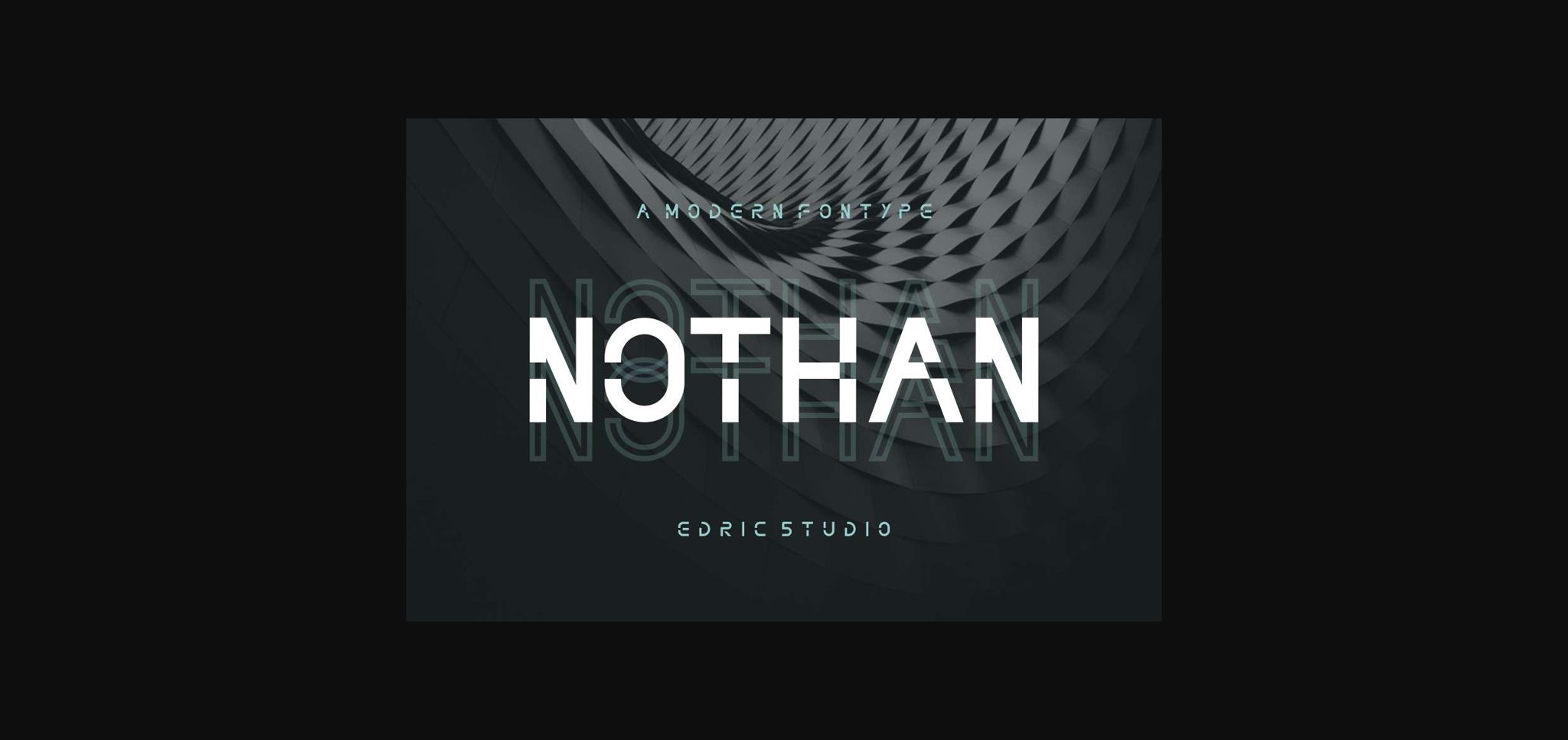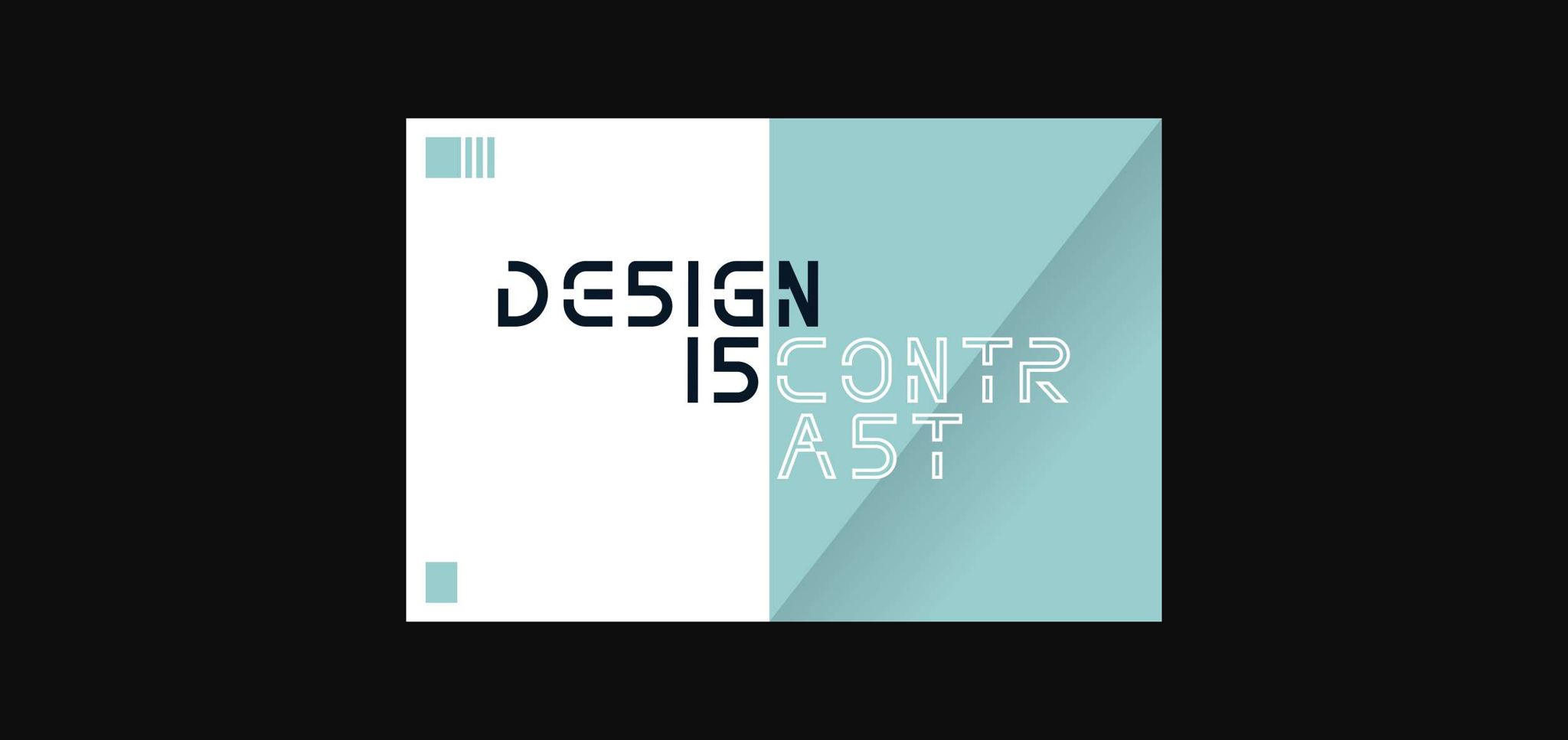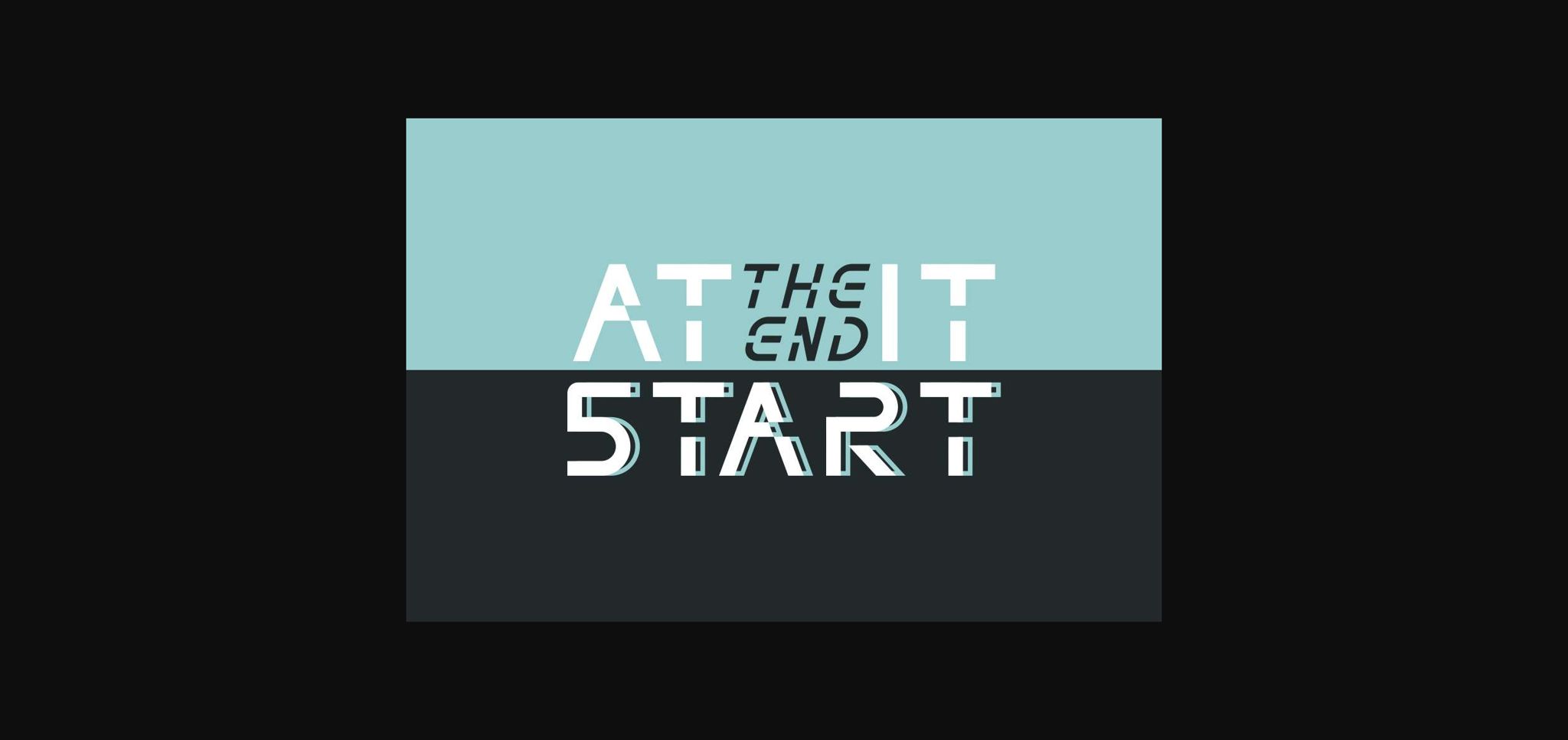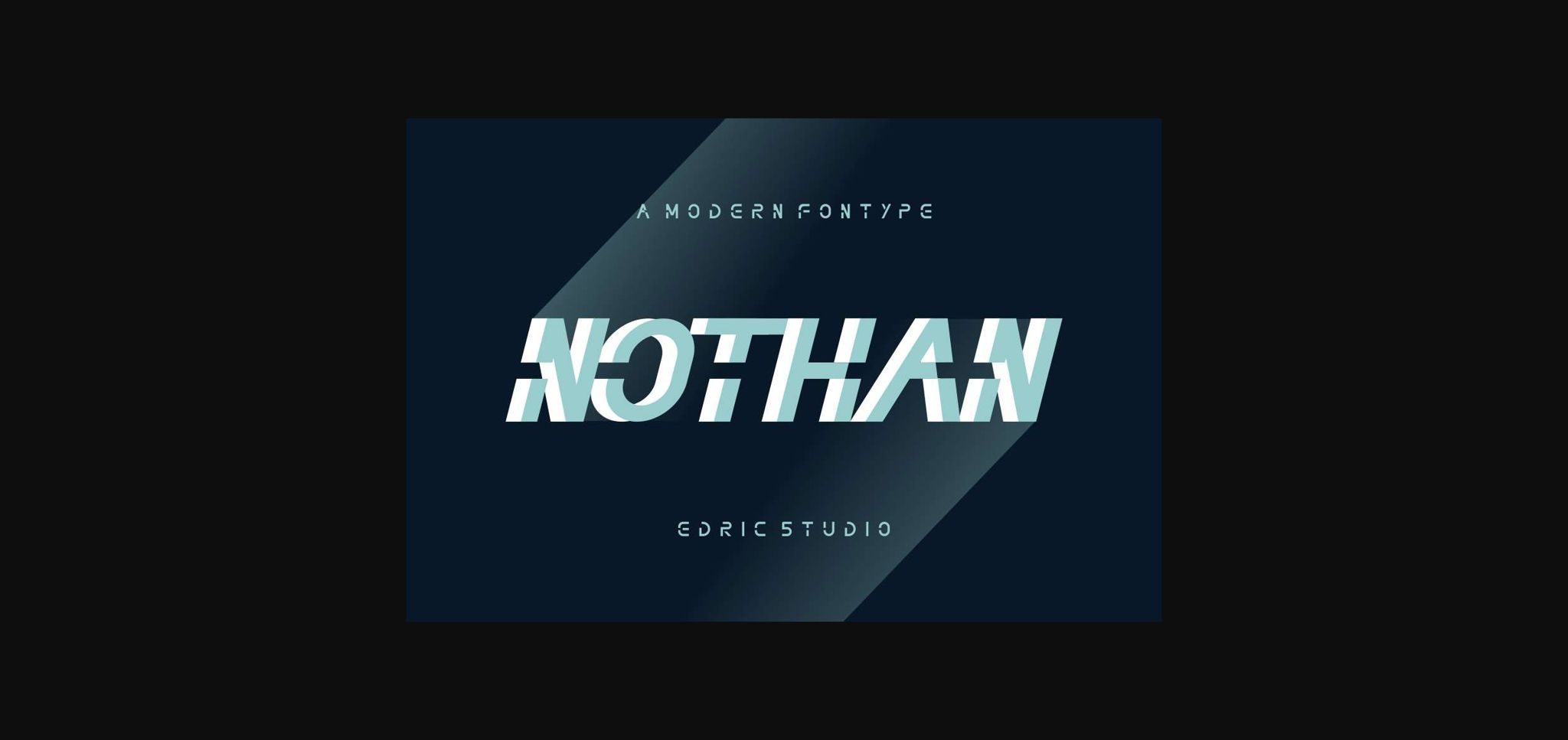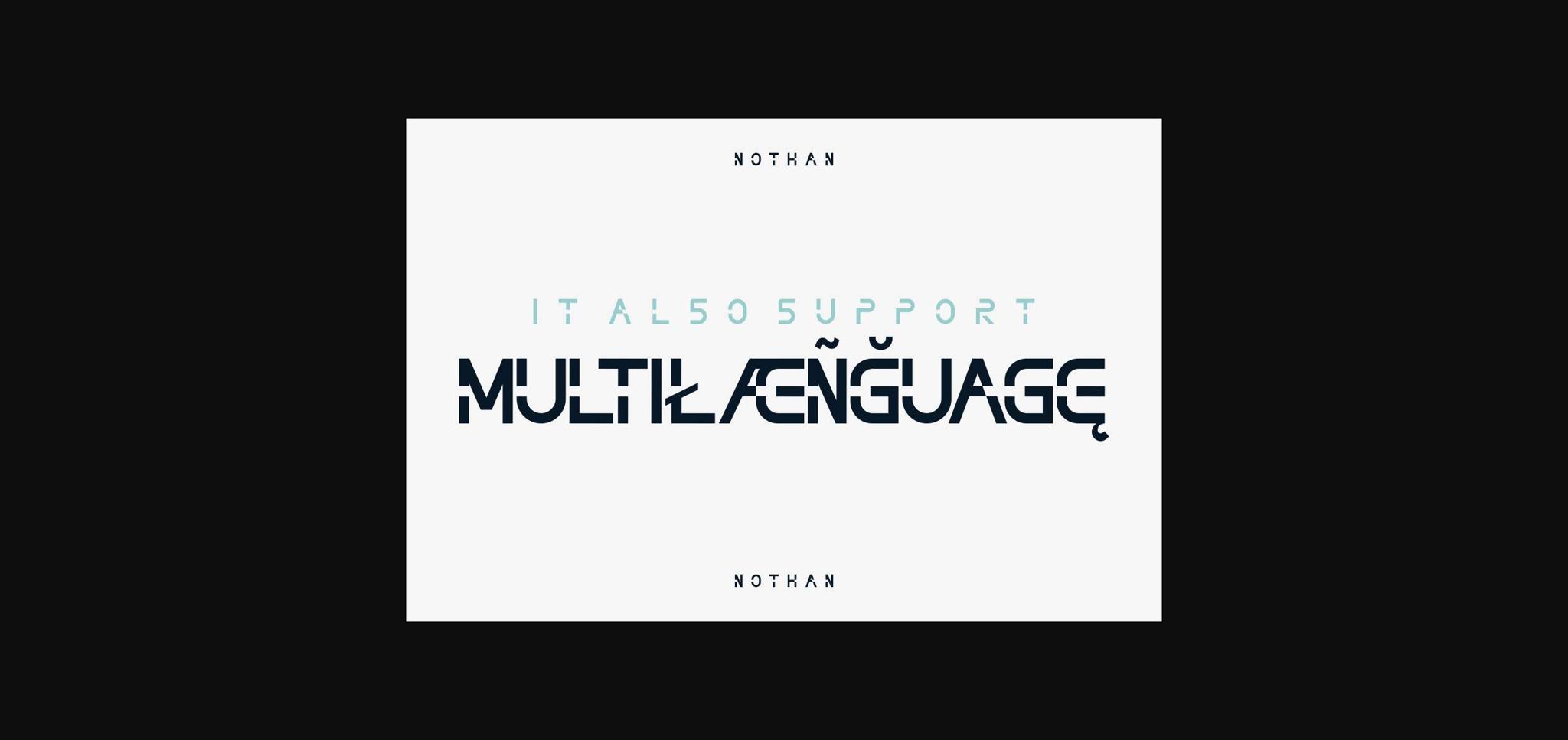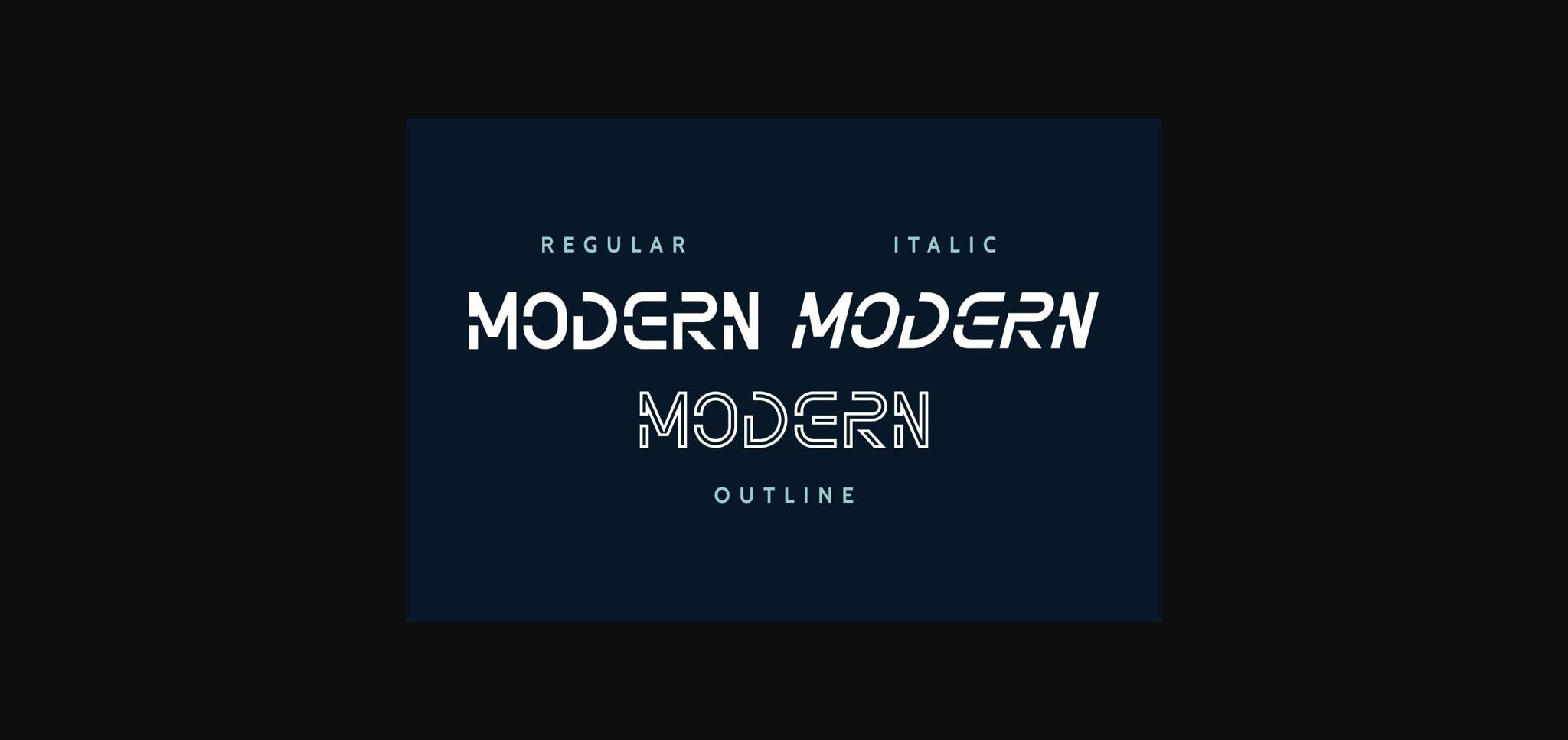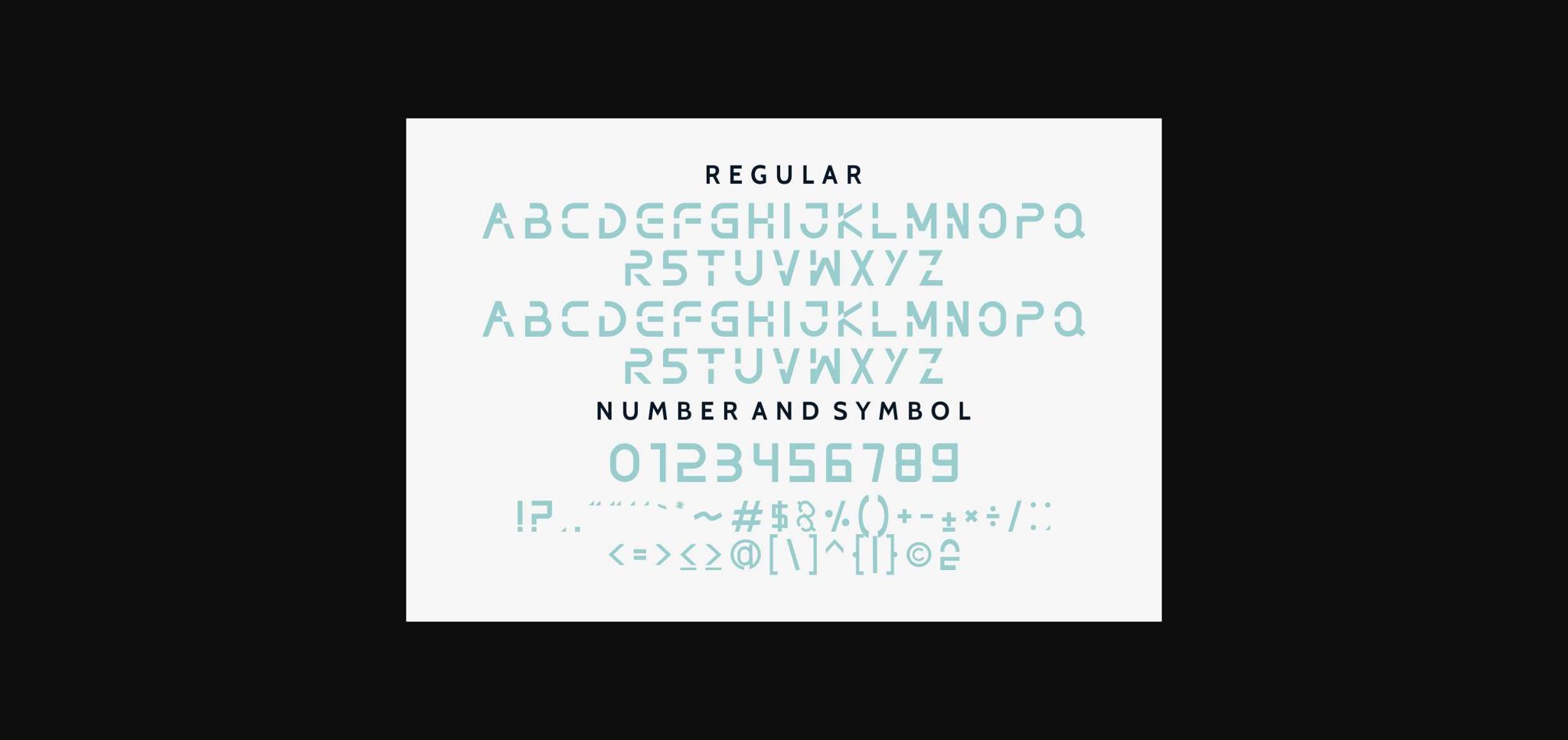
Nothan Font
About Nothan Font
The Fox is a futuristic and decorative sans serif font that transcends time. It both familiar and fresh, and will take any design to the next level!